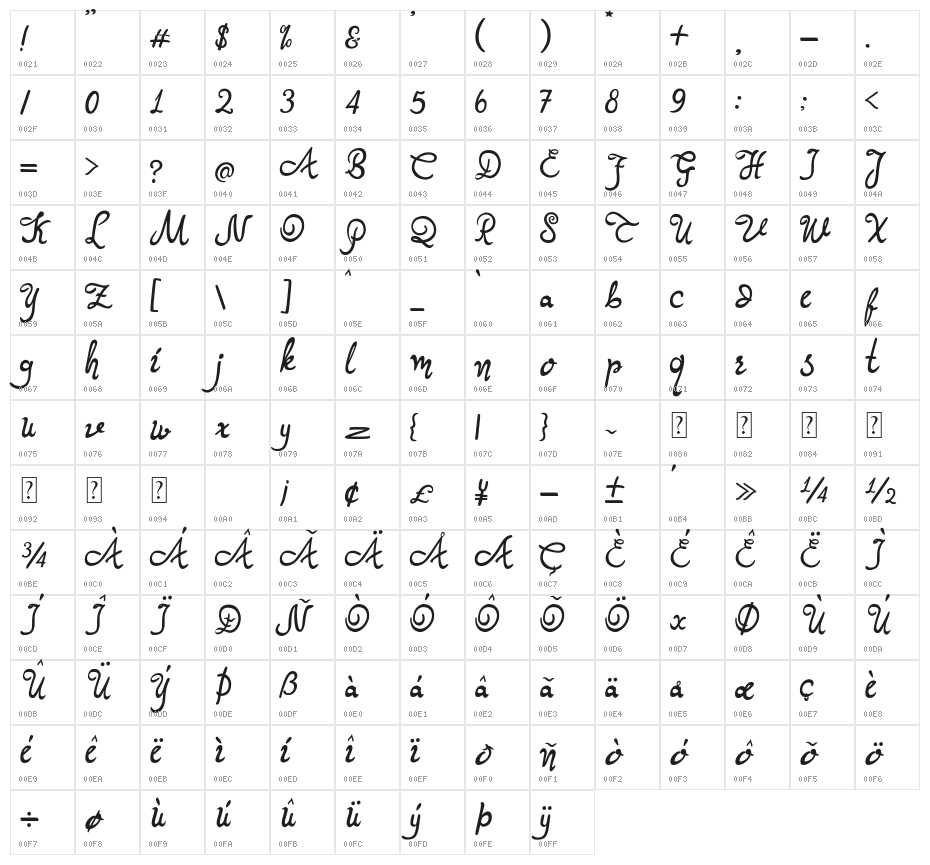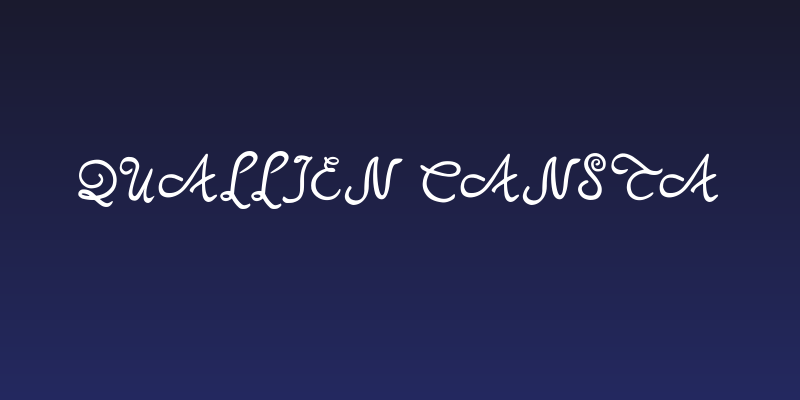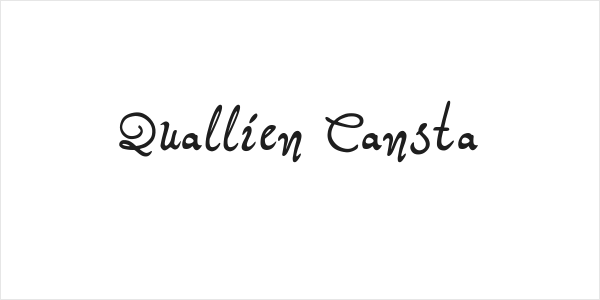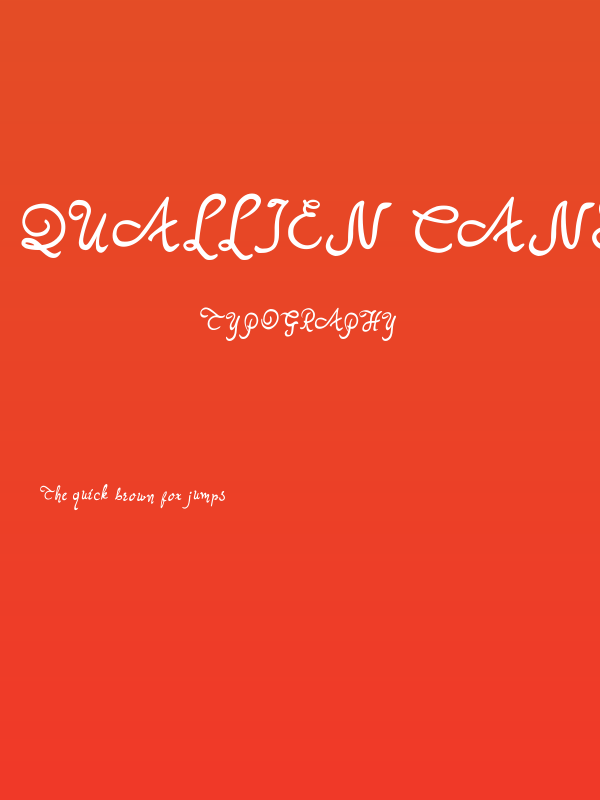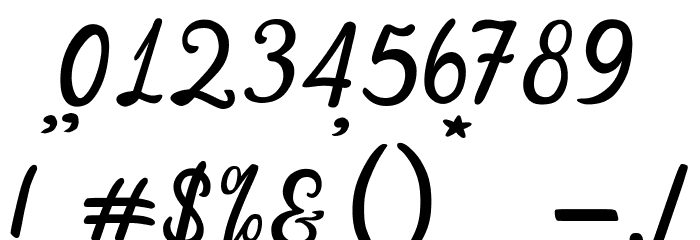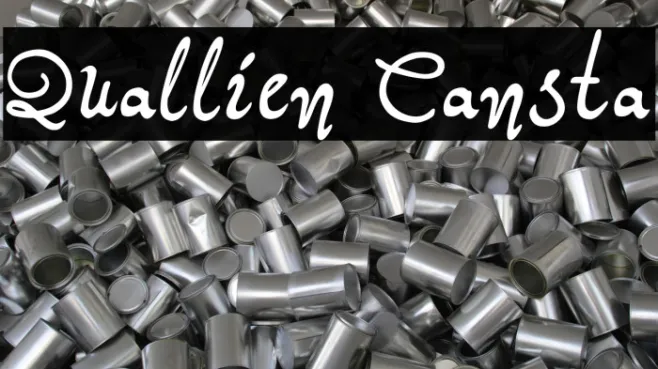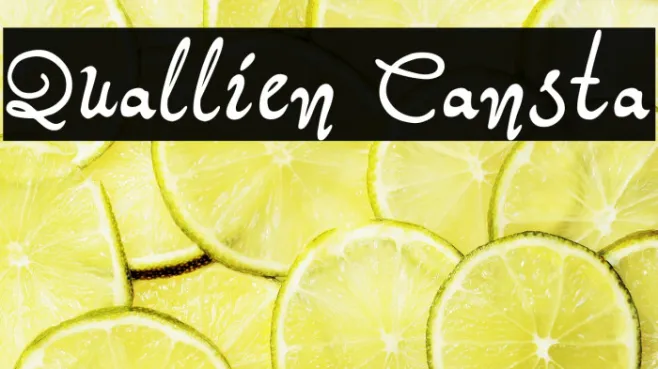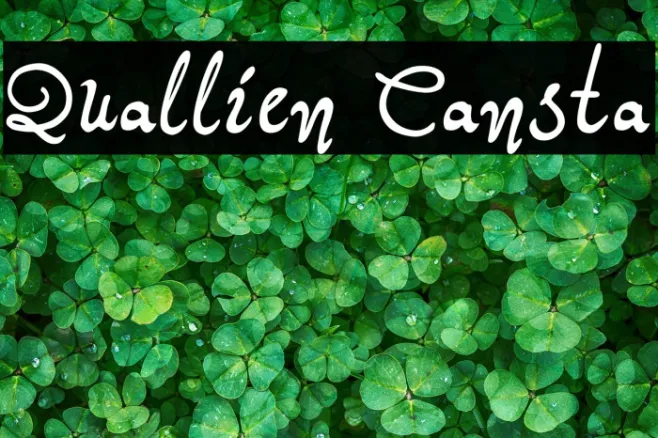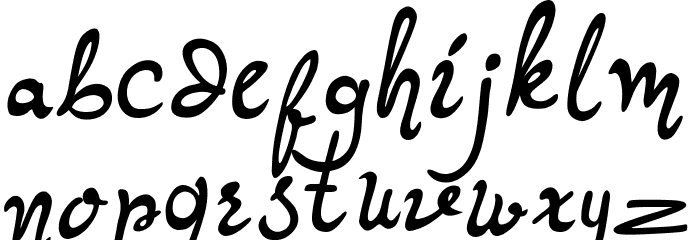
Quallien Cansta Font
Quallien Cansta Description
This font features a playful and artistic script style, characterized by its flowing and interconnected letterforms. The uppercase letters exhibit a whimsical flair with decorative loops and swashes, while the lowercase letters maintain a consistent cursive flow. The numerals are distinct and maintain the same playful style, ensuring readability. Special characters are creatively designed, adding to the font's unique personality. The overall appearance is both elegant and casual, making it suitable for a variety of creative applications.